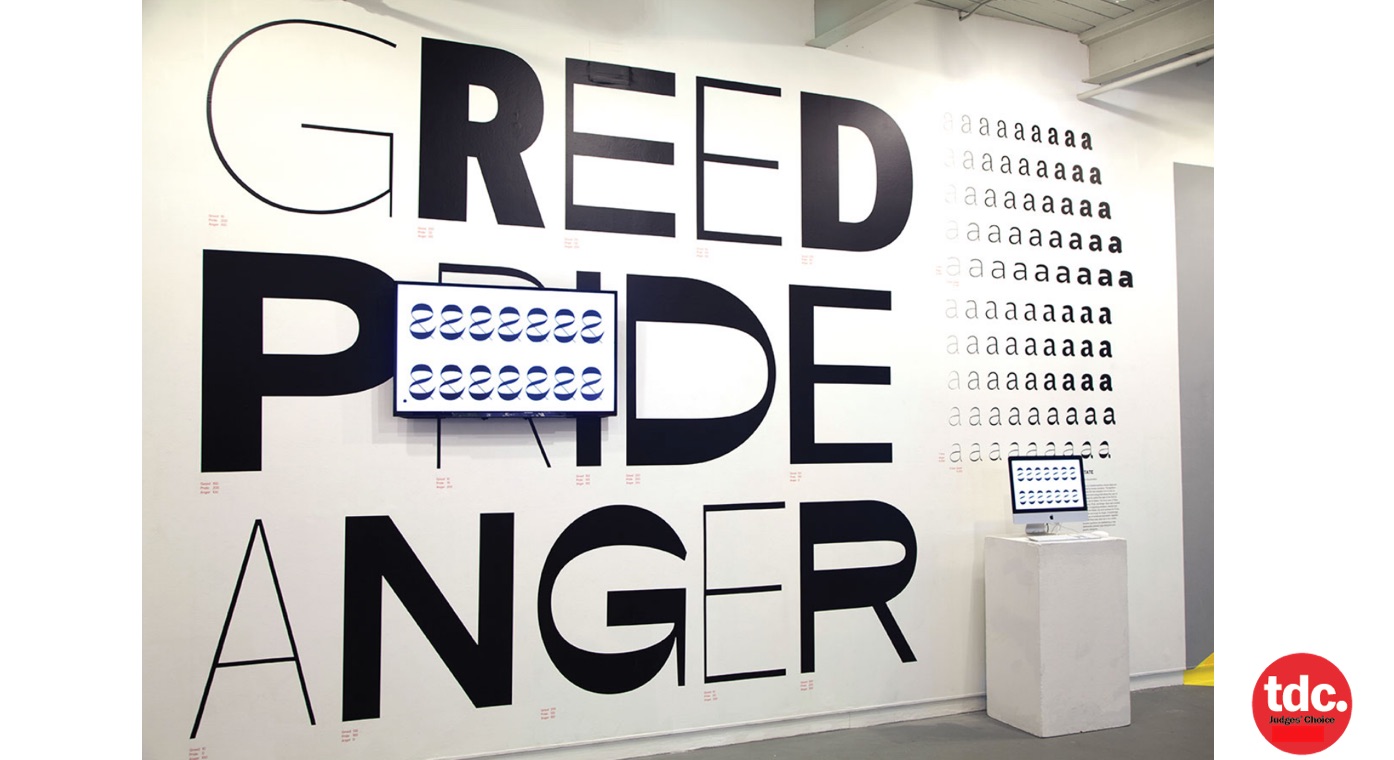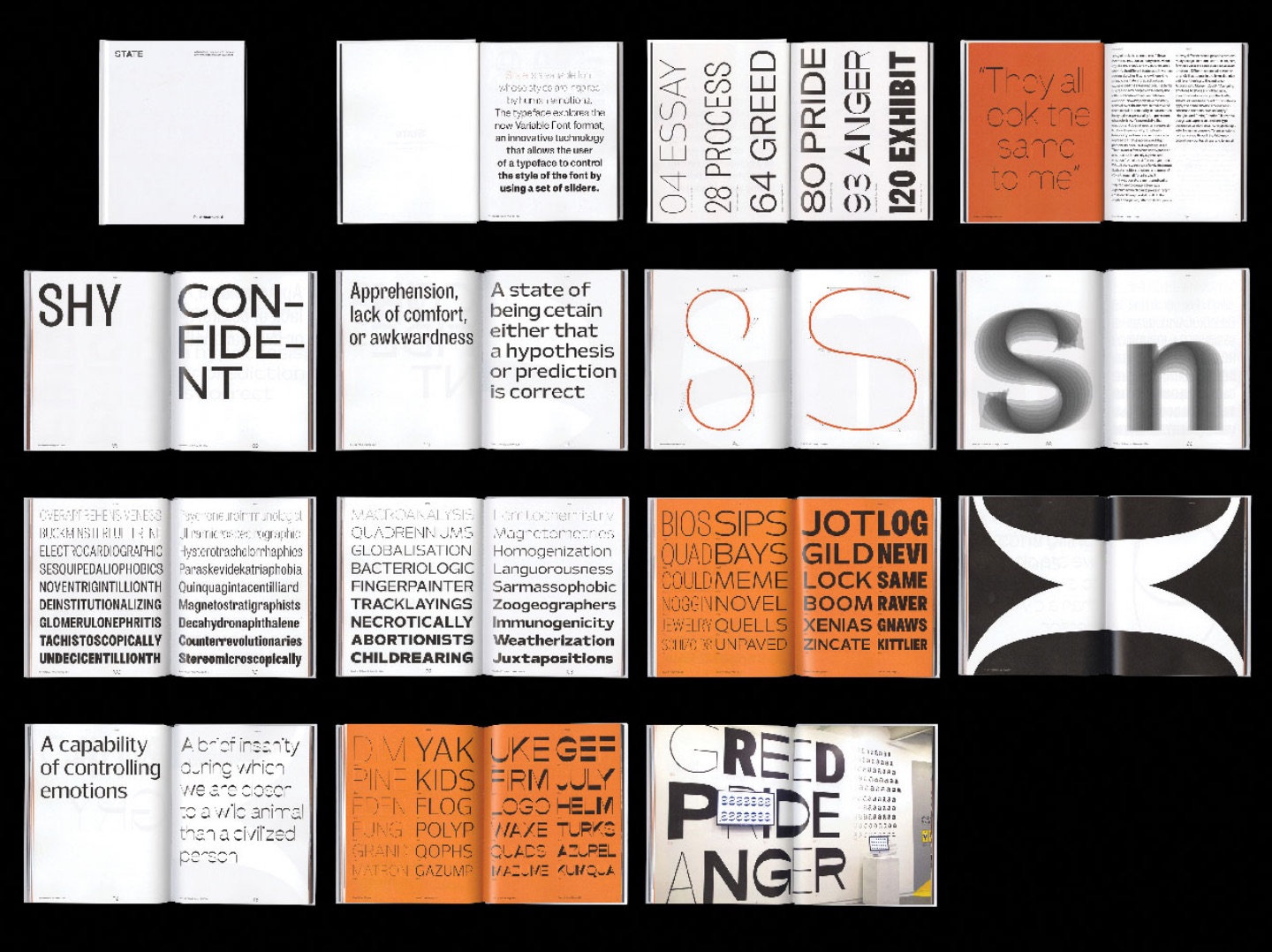
When asked to select his favorite from among all the entries, communication design judge Zipeng Zhu chose State, the innovative variable typeface project created by Potch Auacherdkul at the Maryland Institute College of Art in Baltimore that lets users see how letters can reflect emotions.
About State
- Designer: Potch Auacherdkul, Maryland Institute College of Art
- Instructors and Design Direction: Jason Gottlieb, Ellen Lupton, and Jennifer Cole Phillips
- School: Maryland Institute College of Art, Baltimore, Maryland, USA
- Principal Type: State
State is a variable typeface whose styles are inspired by human emotions. The typeface explores the new Variable Font format, an innovative technology that allows the user of a typeface to control the style of the font by using a set of sliders.
The three axes of State are Greed, Pride, and Anger. Each axis consists of a pair of opposing emotions: desired and fulfilled for Greed, shy and confident for Pride, and calm and angry for Anger. A neutral type style—free of emotional expression—appears when all three axes were set in the middle. Variable typefaces are establishing a new relationship between type designers and graphic designers
Comments by Communication Design Judge Zipeng Zhu
"As a Communication Design judge, I look for one thing – does the work communicate excellently through typography? My judges’ choice not only met that standard, but completely exceeded my expectations in concept and execution.
State is a variable typeface inspired by the full range of human emotions. The typeface not only has a thoughtful concept but is also drawn exquisitely and has beautiful experimental letterforms. The reverse contrast in Anger especially stood out for me — its unusual proportions and inverted weight distribution caught my eye and was firmly planted in my memory. I can’t get it out of my head.
I have such admiration and appreciation for the decision to pursue both innovation in technology and experimentation in typography. I wish there was another scale for Excitement for what I'm feeling at the moment.”